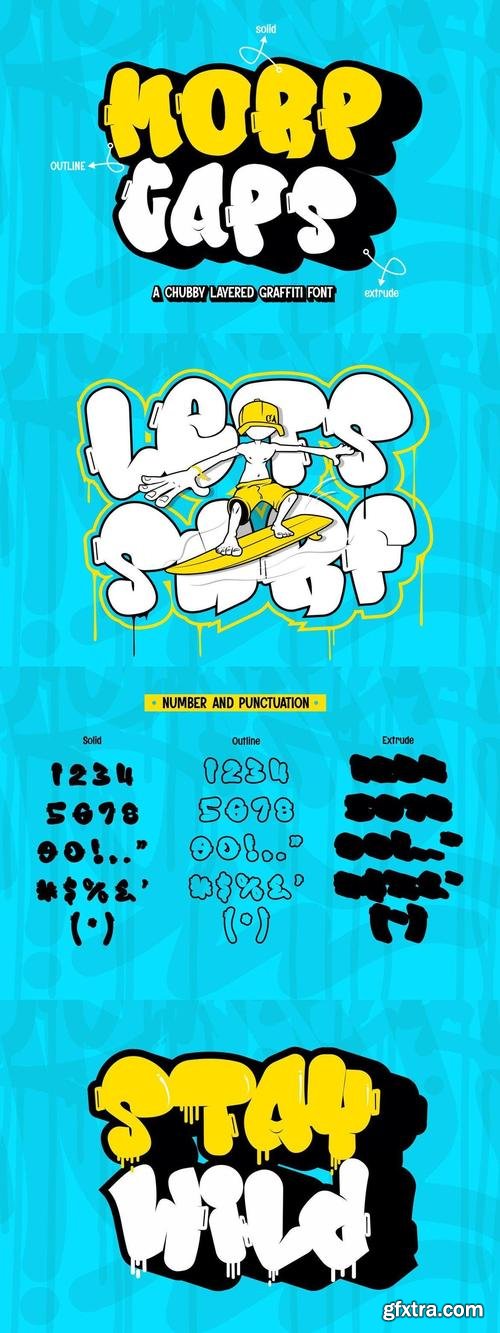
Unleash the urban energy with Morp Caps – a bold, chubby layered graffiti font that captures the essence of street art and modern design. This playful yet impactful typeface brings a fresh vibe to any project, whether you're designing posters, logos, or merchandise. Its rounded edges and vibrant layers create a dynamic visual presence that demands attention. Perfect for branding, event promotions, and creative visuals, Morp Caps lets you explore the art of typography like never before.
- Layered Design: Add depth and dimension to your work with multiple layer options for a unique, custom look.
- Bold & Playful: Its thick, chubby characters give your designs a fun, modern feel that stands out in any context.
- Perfect for Graffiti Lovers: If you love street style, Morp Caps is the perfect font for capturing the essence of urban creativity.
- Versatile Usage: Whether for print, digital, or merchandise, this font works across a wide range of mediums.
- Easy to Use: Each layer is fully customizable to suit your design, allowing you to mix and match to create your own unique look.